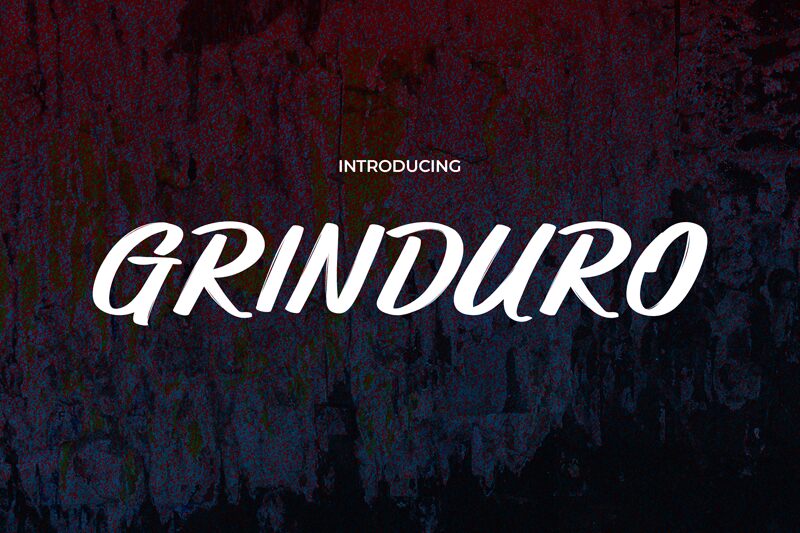
GRINDURO
Grinduro font by Pinisiart is a brush script font, elegant in its fluid construction and confident with its modern flair from beginning to end. The strength of the individual characters and the natural flow with which they connect makes this font appear as if it was manually created with care.
Use it for clothing designs, branding projects within any industry, food packages and labels, journal covers, book covers that share exciting adventures or fictional tales, banners that present promotions brought by shops and supermarkets, flyers for nature-related workshops or meditation camps prepared for both young readers and adults.